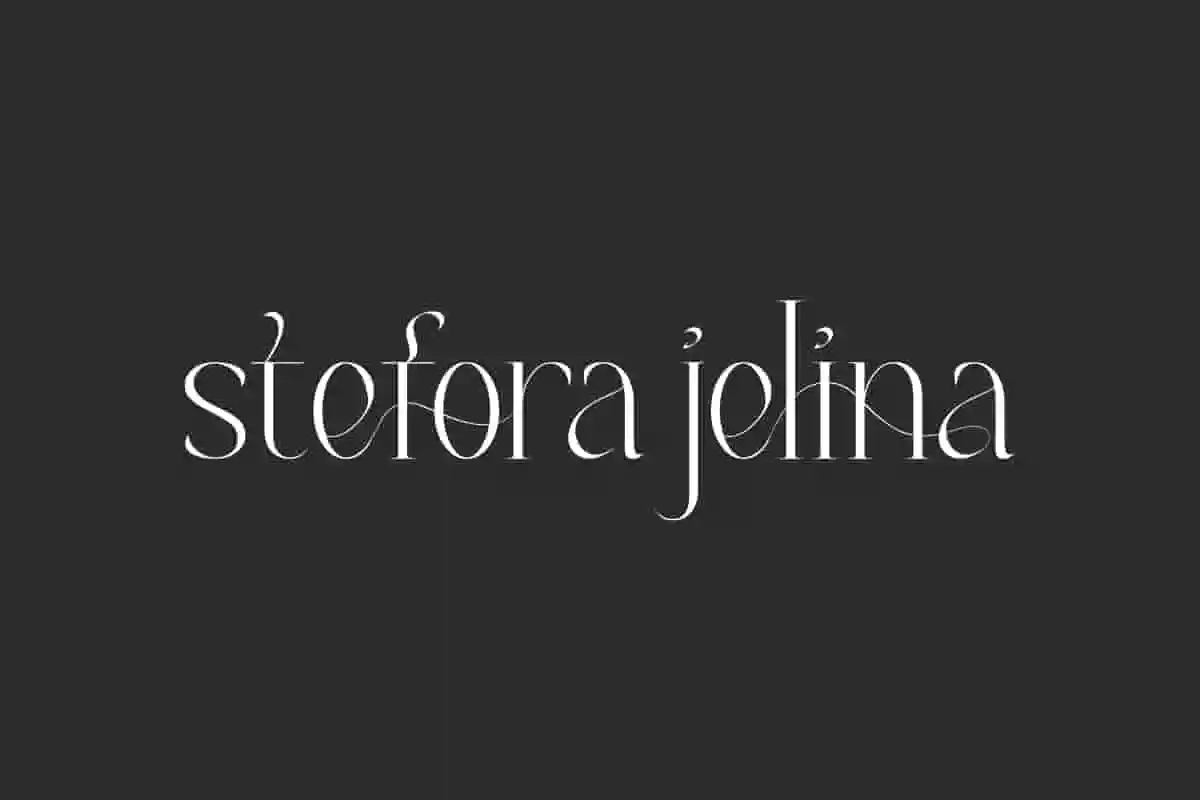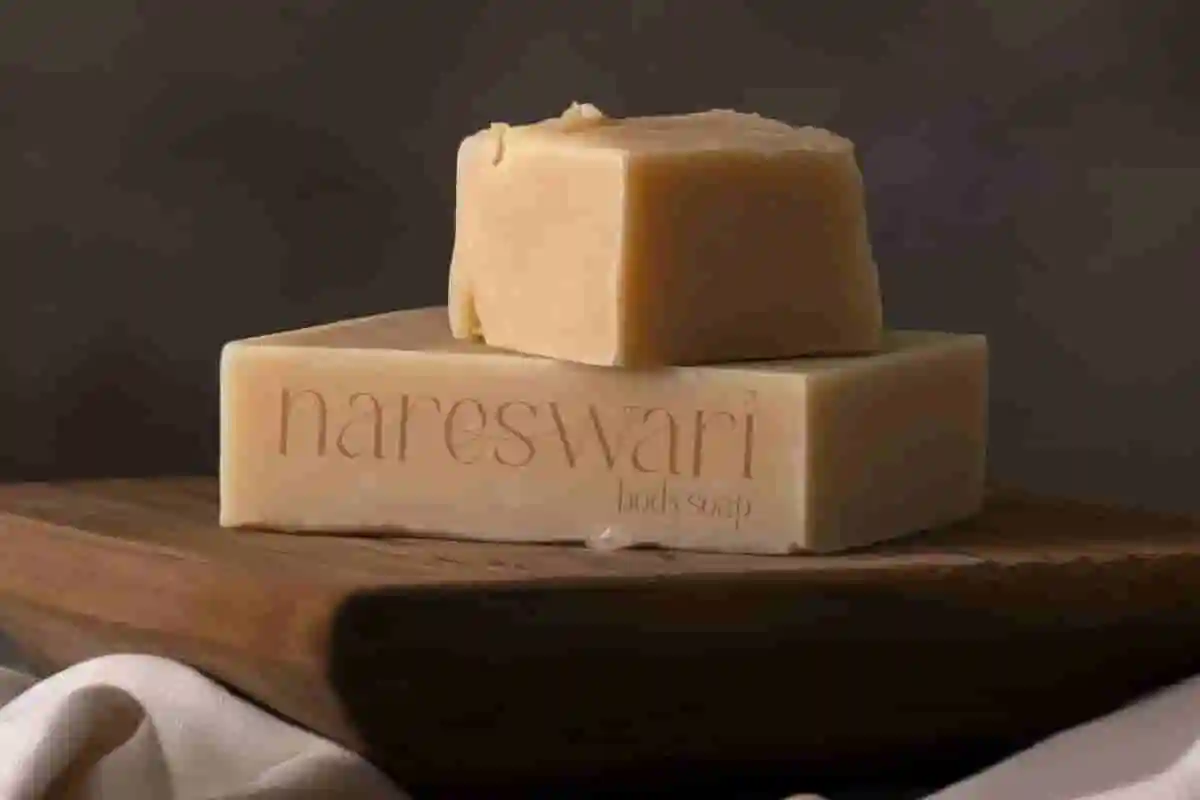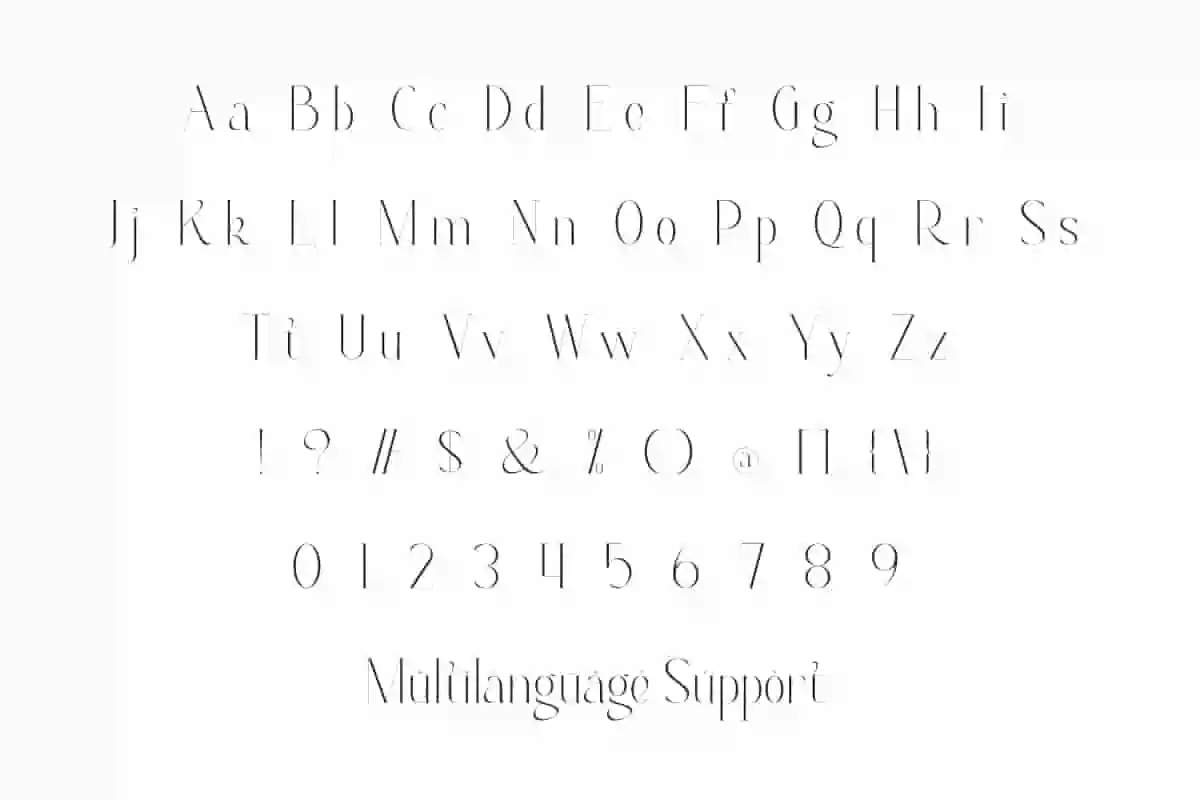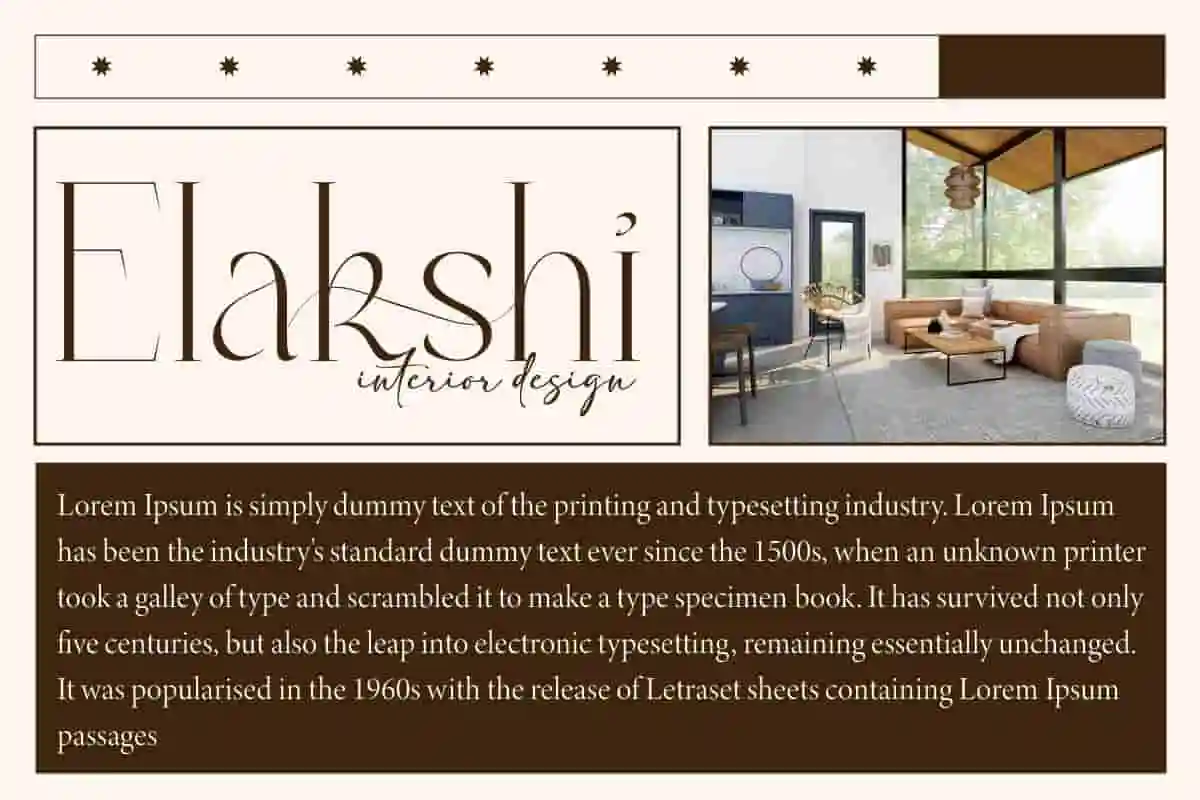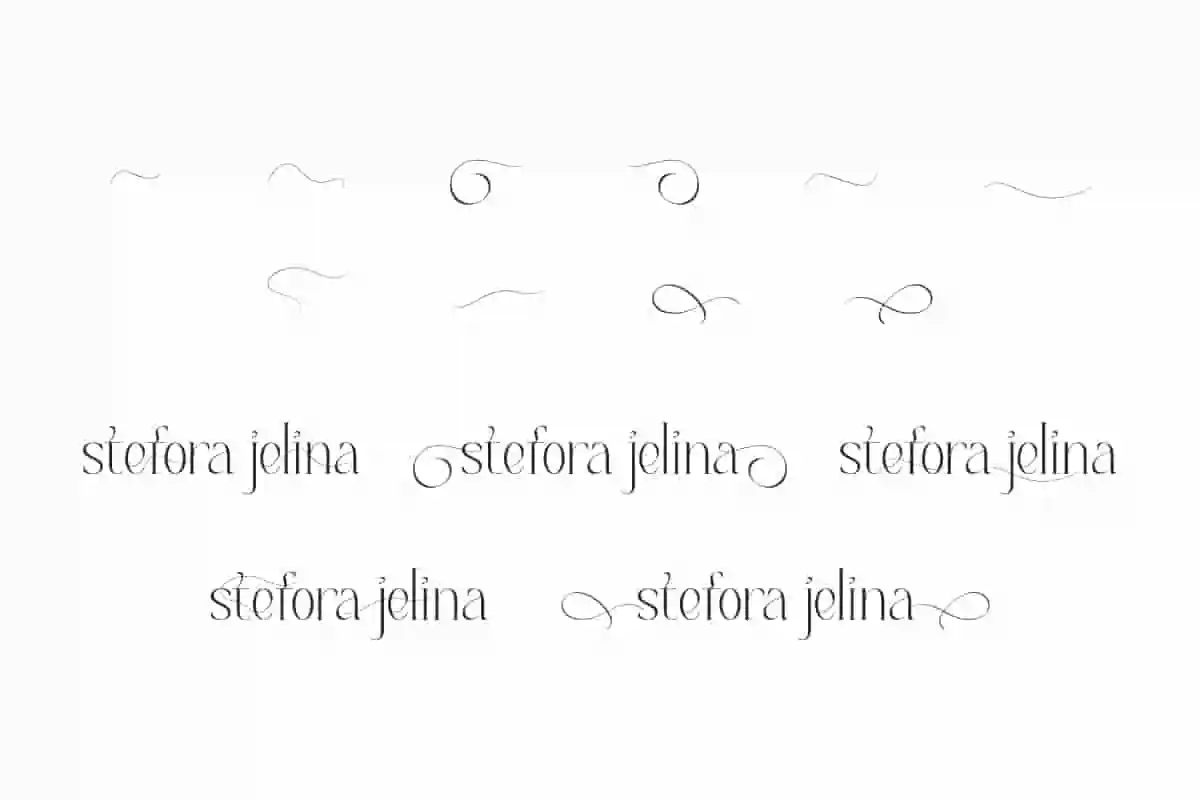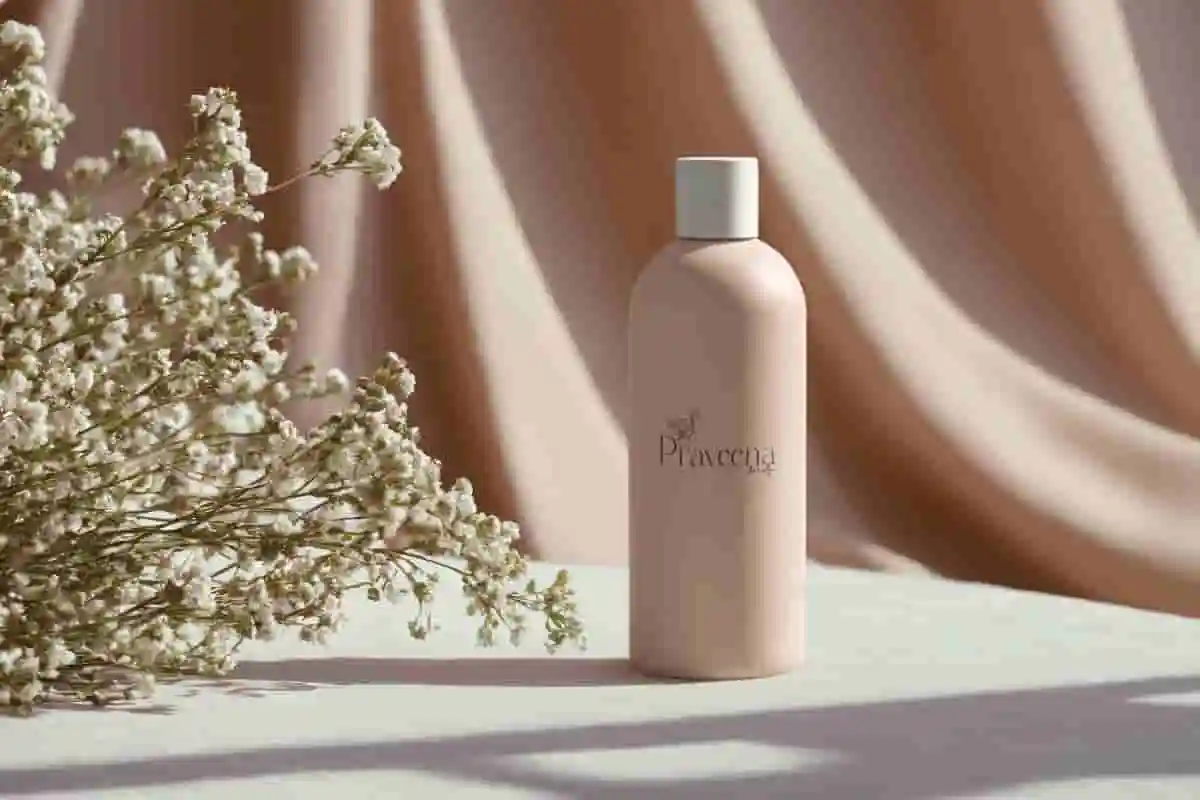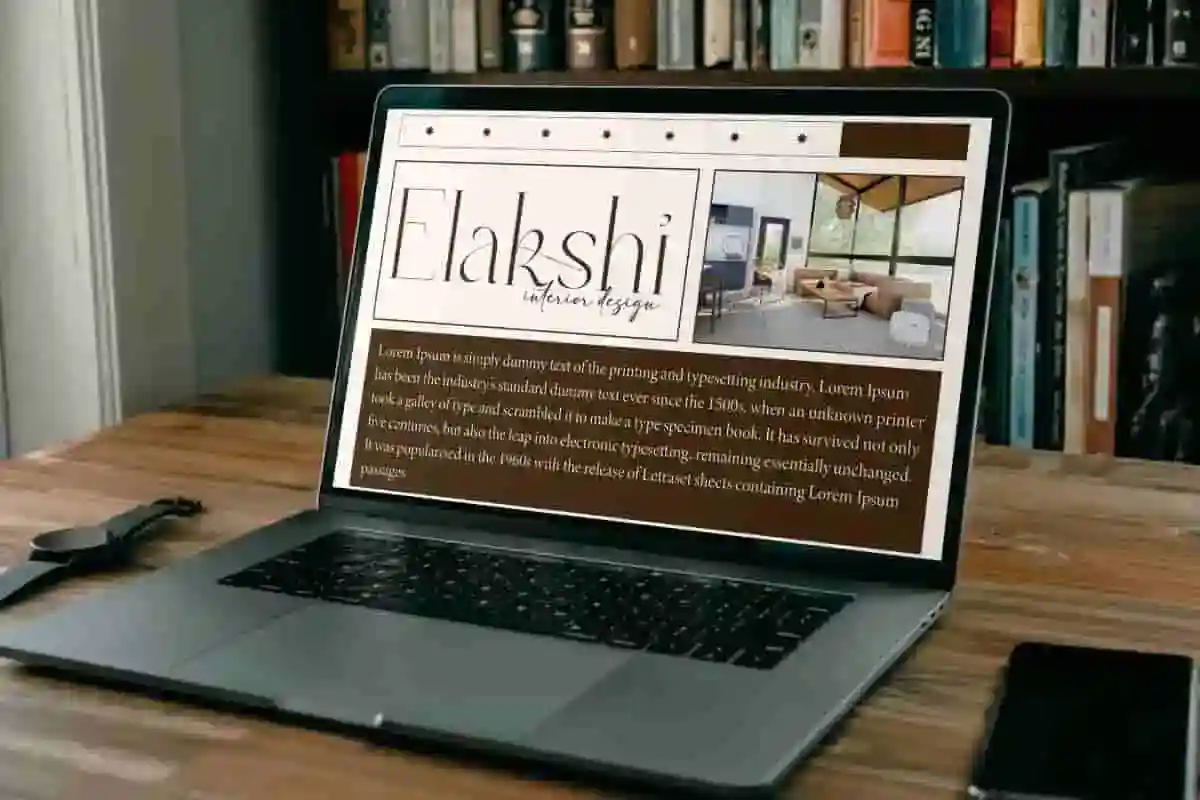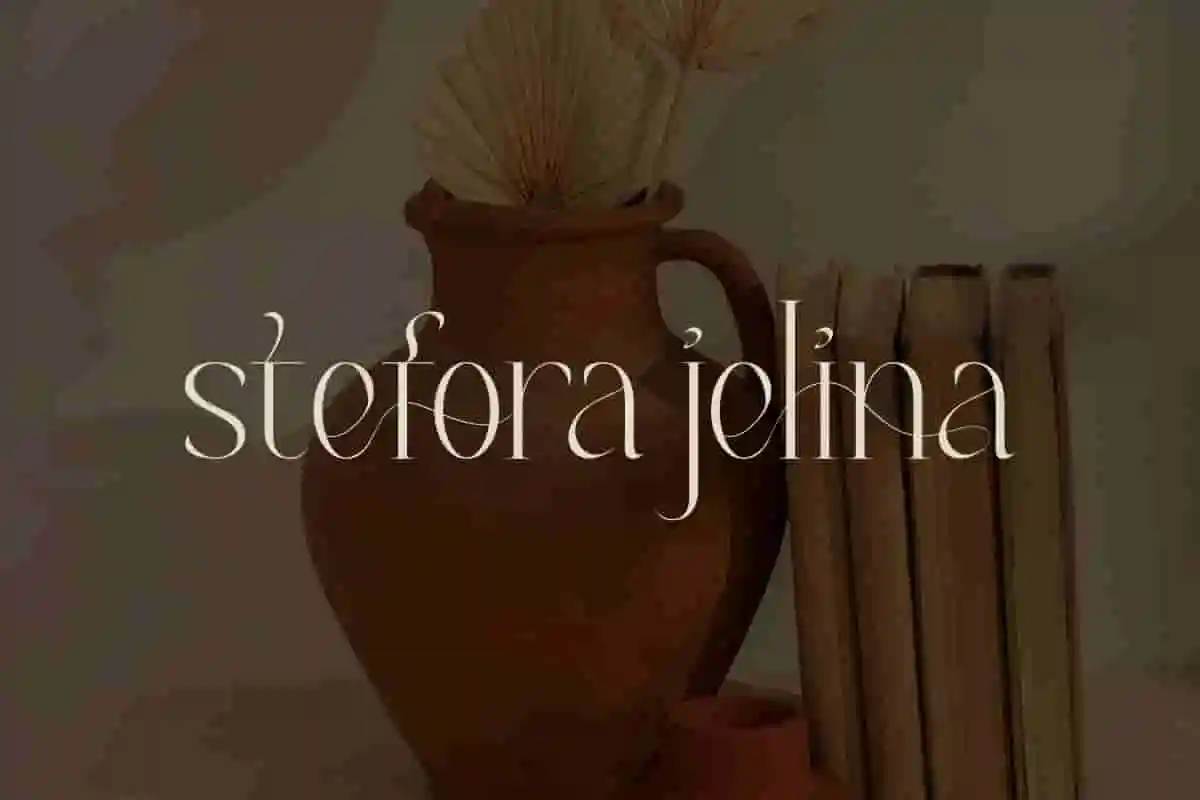
Stefora Jelina Font is a uniquely stunning sophisticated serifdisplay font with a distinctive design that combines vintage and modern aesthetic that has never seen before. This font will be perfect for any projects, can be used for advertisement, brand image, custom design, invitation, label, layout design, quotes, stationery, template design, website, and more!
Stefora Jelina Font includes full set of Uppercase and Lowercase Basic Characters, Numerals, Punctuation, Symbol, and Swoosh character. This font has fine details and unique curves that create an elegant impression. Making it a perfect choice for a variety of fields, such as event or wedding organizer, fashion, accessories and jewelry, beauty product, florist, furniture, real estate, spa salon, etc.